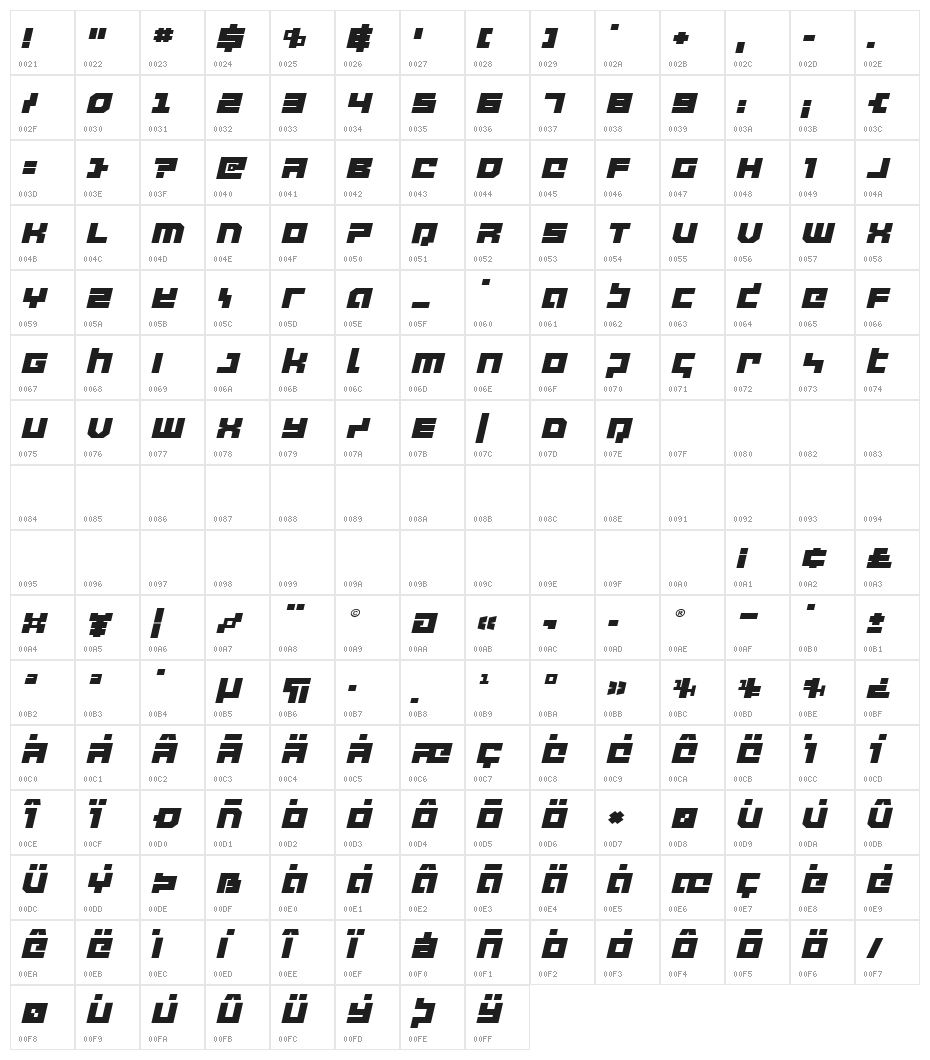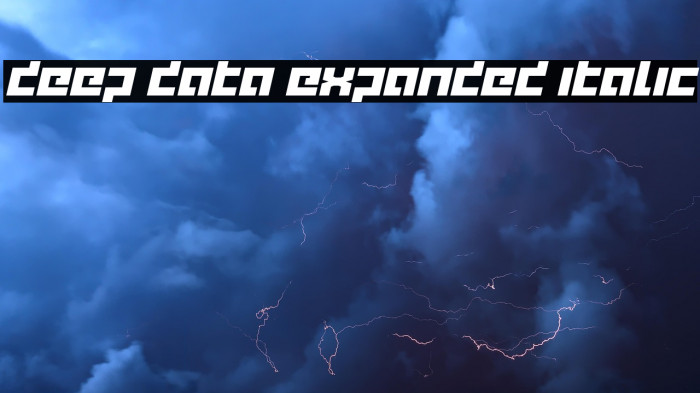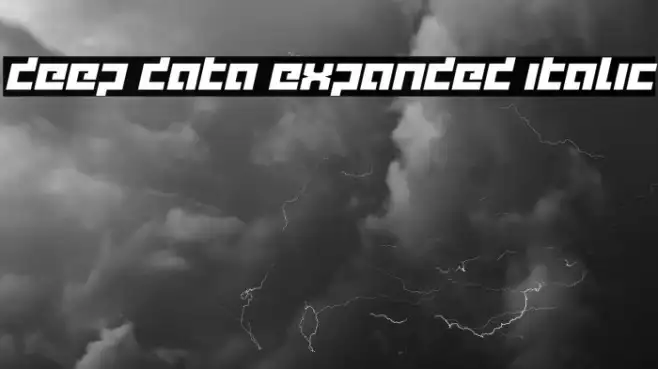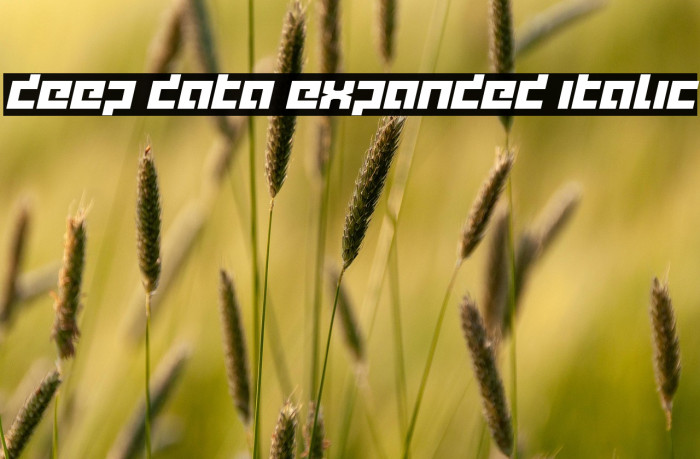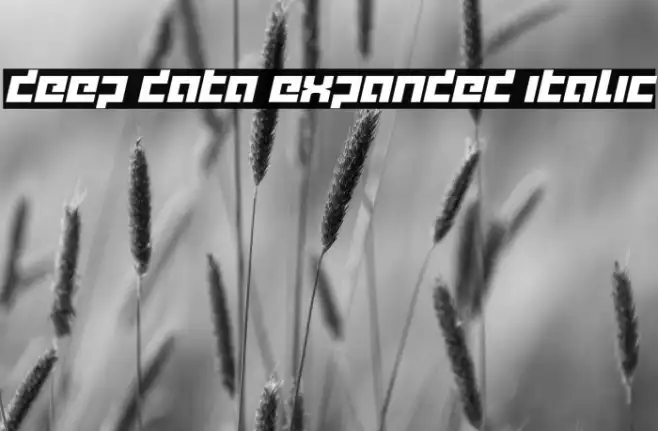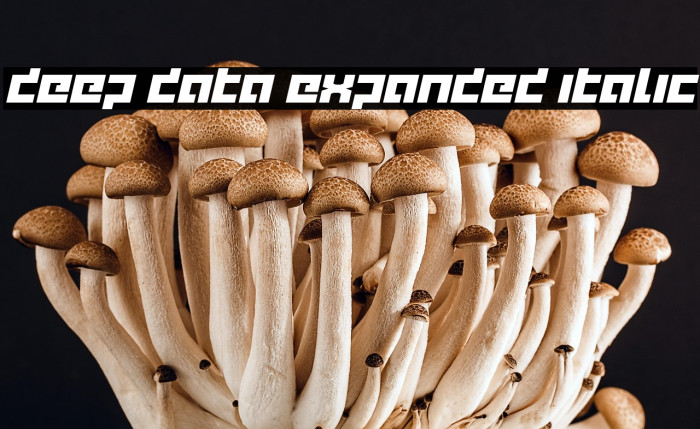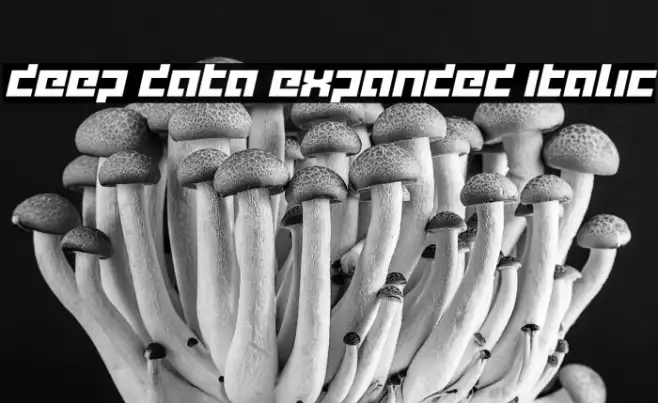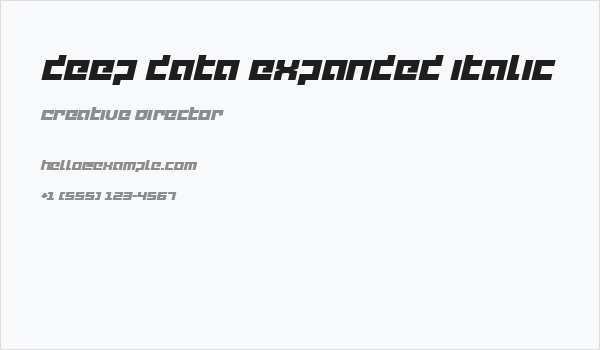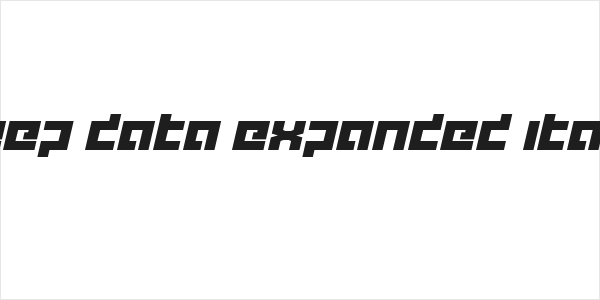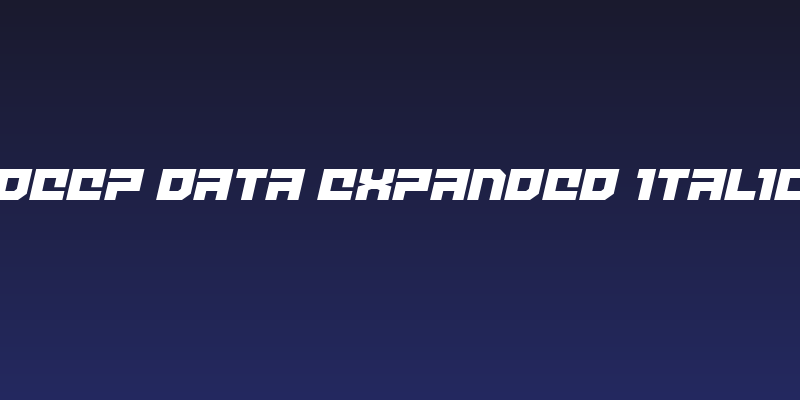
deep data expanded italic Font
deep data expanded italic Description
This font features a bold, angular design with a futuristic and dynamic appearance. The characters are expanded and italicized, giving them a sense of motion and energy. The geometric shapes and sharp edges contribute to its modern and tech-inspired aesthetic. The uppercase and lowercase letters maintain a consistent style, while the numbers and special characters complement the overall design. This font is suitable for projects that require a strong, impactful visual presence.
Proposed ProjectsIdeal for technology branding, sci-fi movie posters, video game titles, and modern advertising campaigns.